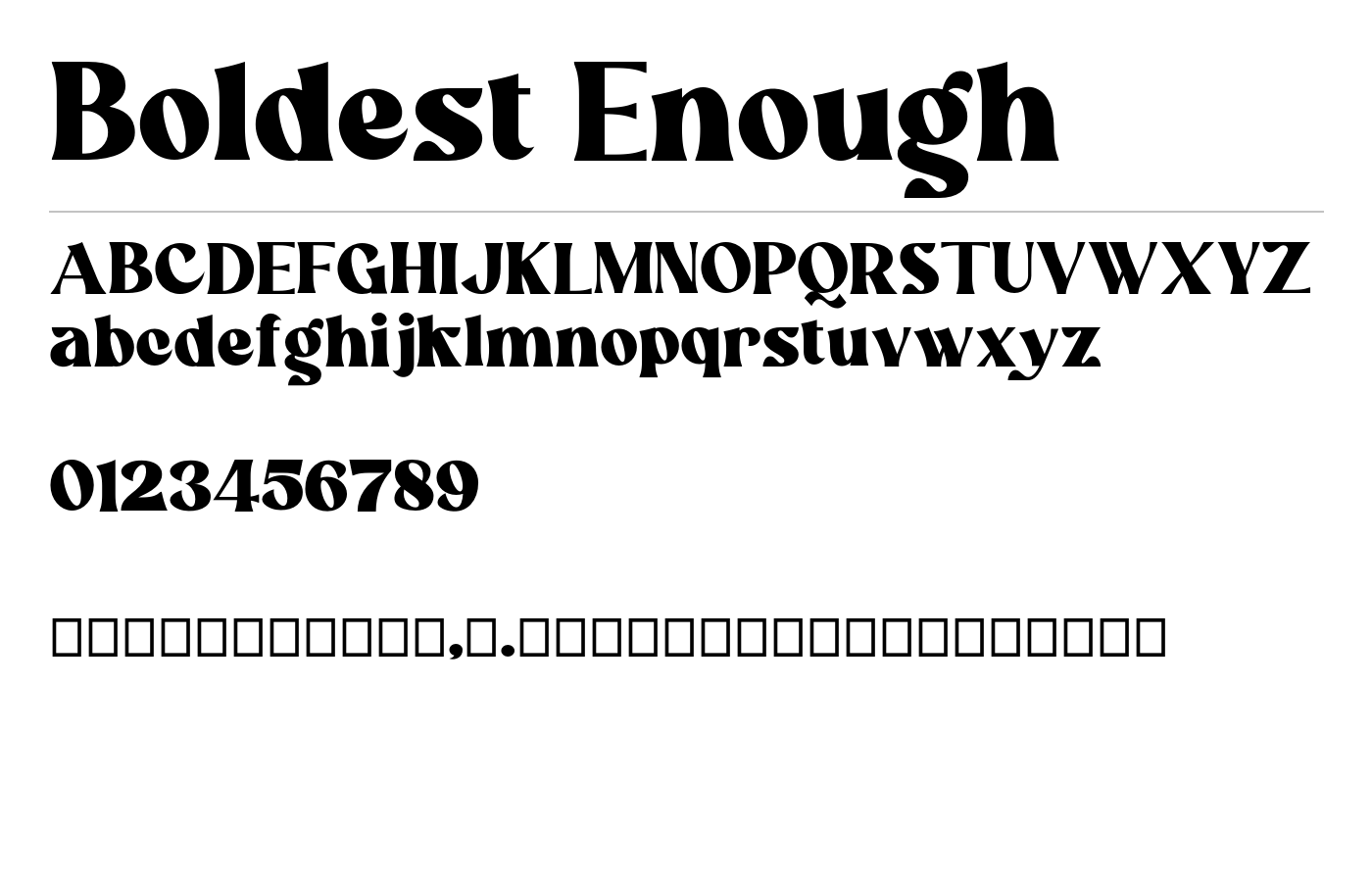
Boldest Enough is a strong, bold serif font with a slightly condensed width and a medium x-height that commands attention. Its thick and thin stroke contrast, along with unique letterforms like the curved Q tail and distinctive lowercase g, gives it a modern yet classic feel, making it ideal for impactful headlines, logos, and editorial designs where a confident, elegant presence is needed. This typeface works especially well in fashion, luxury branding, and premium packaging, delivering a sense of authority and style.
Boldest Enough Font